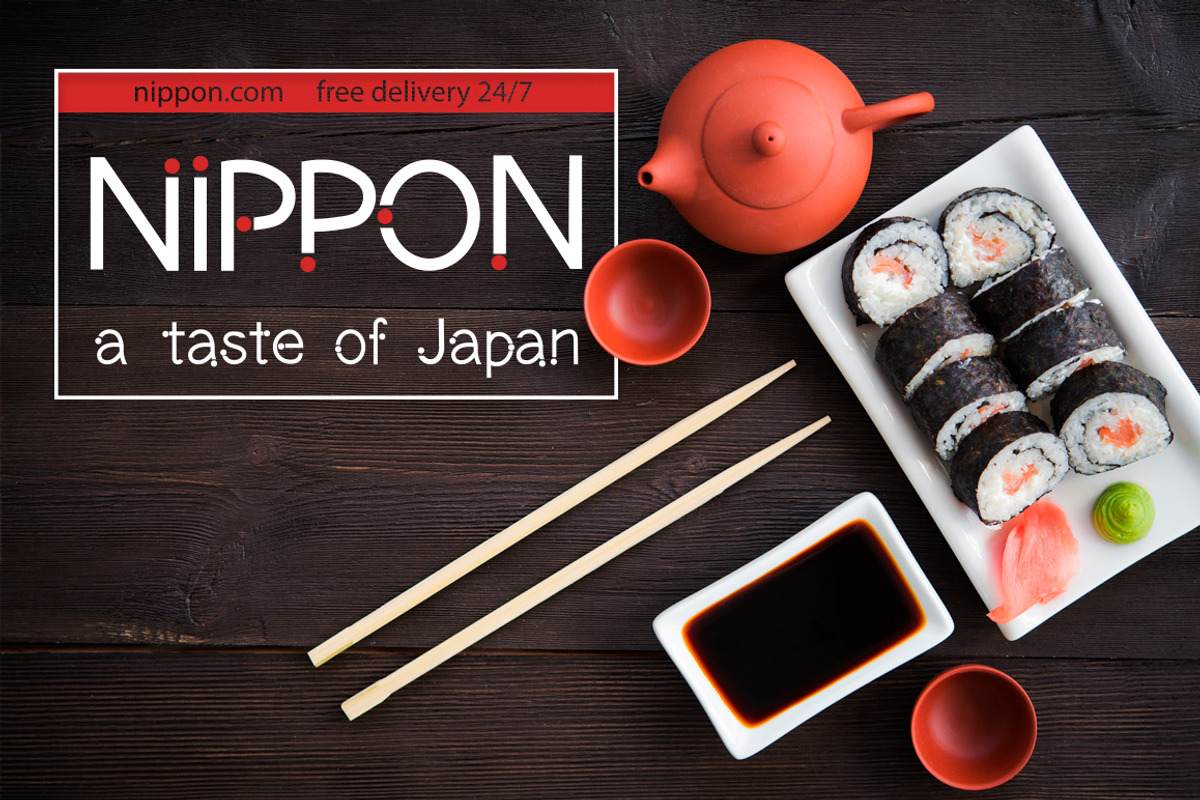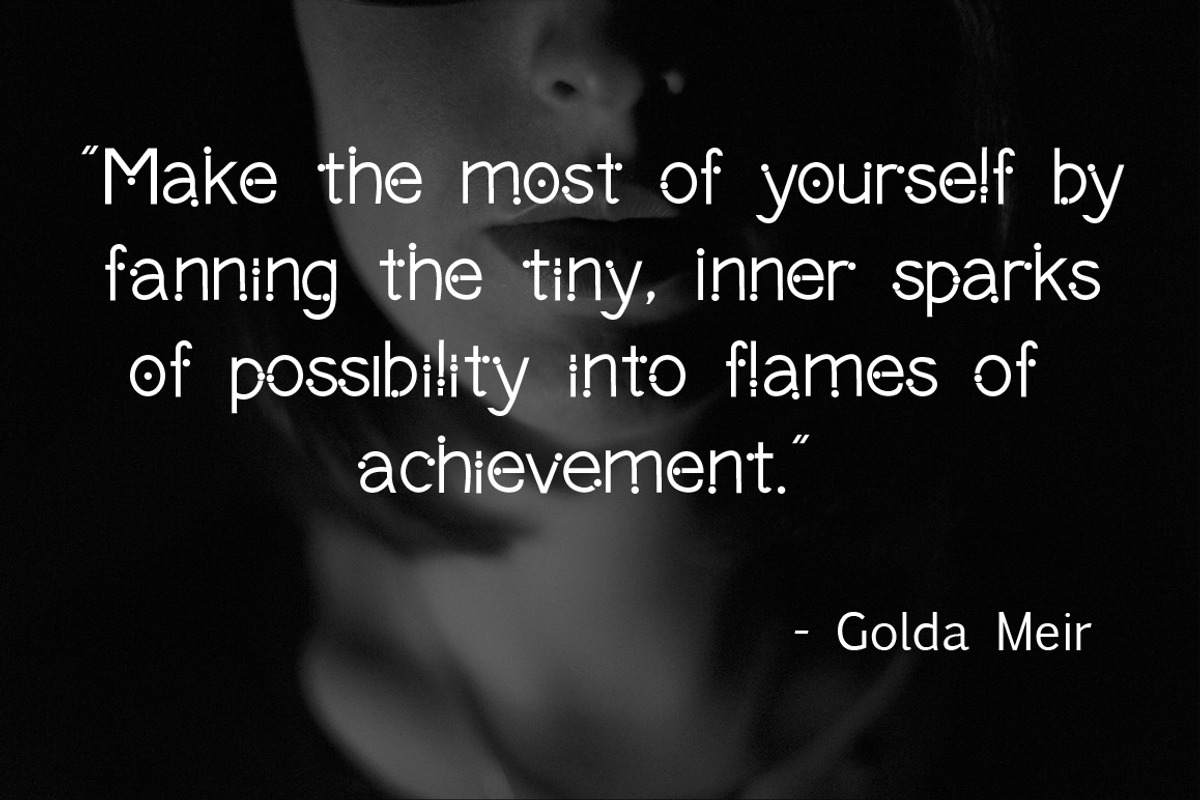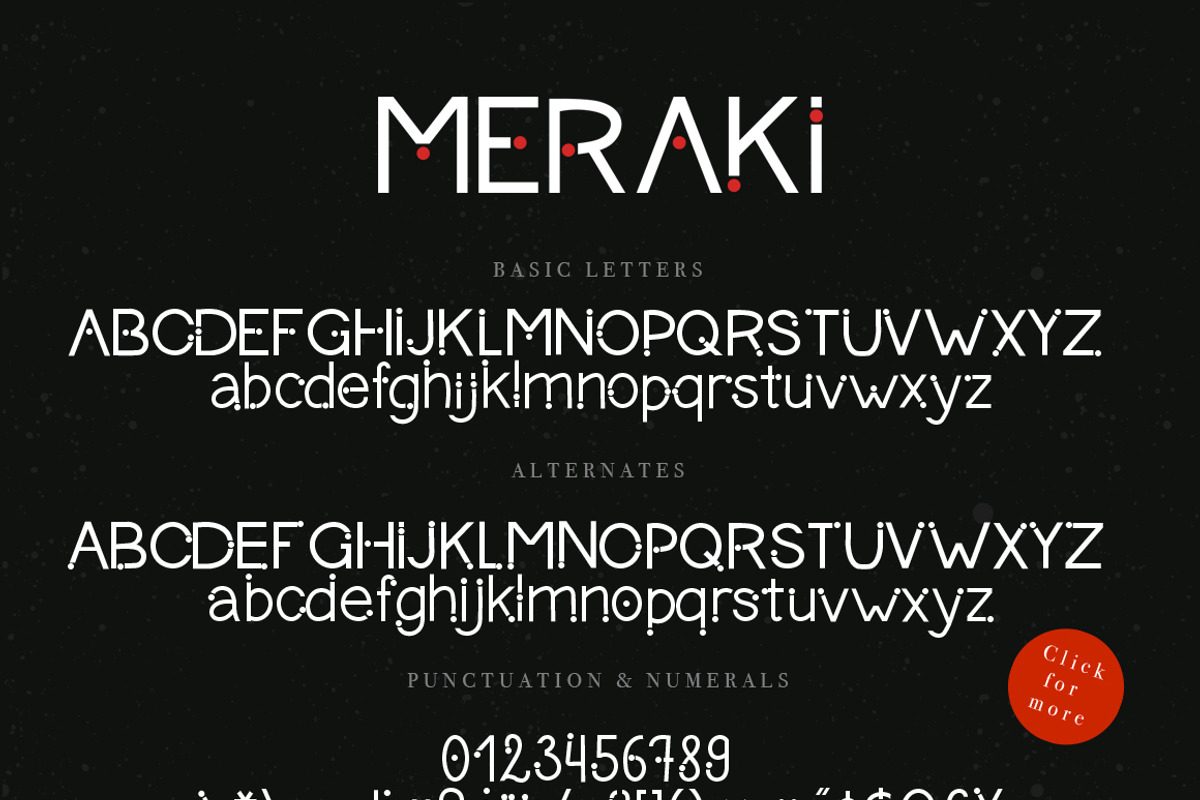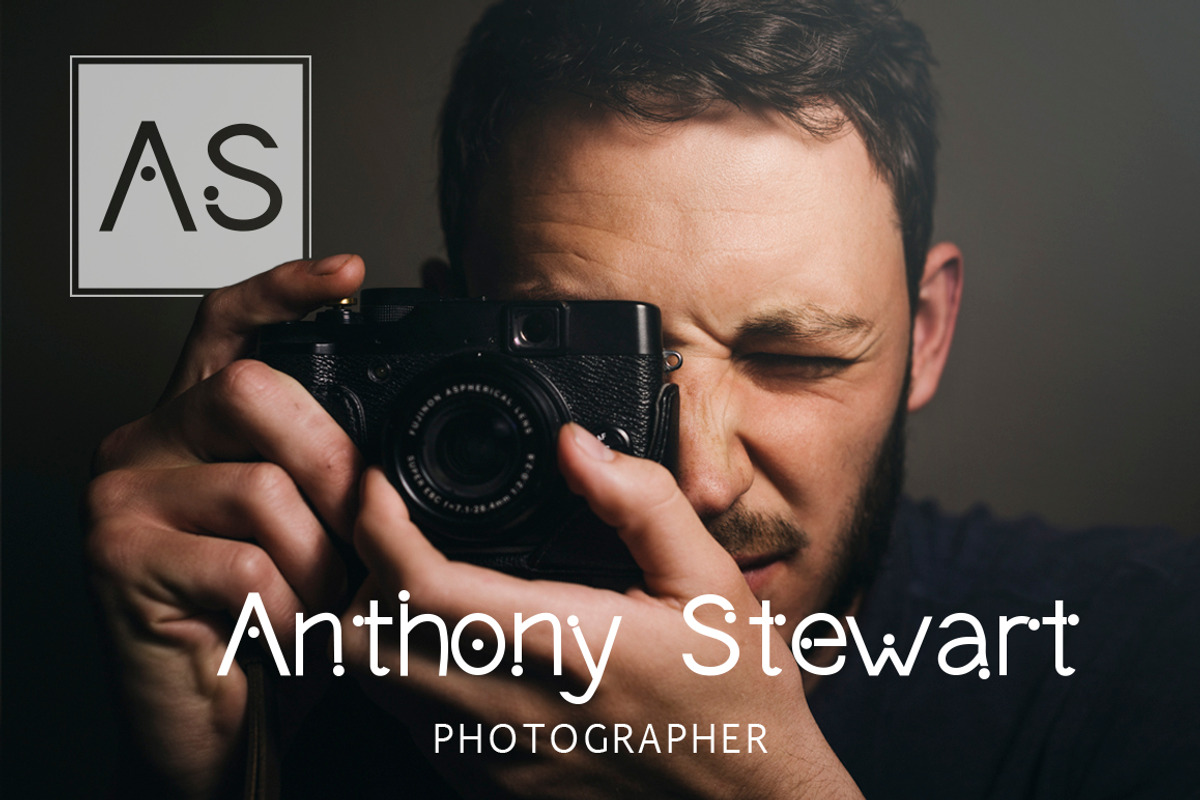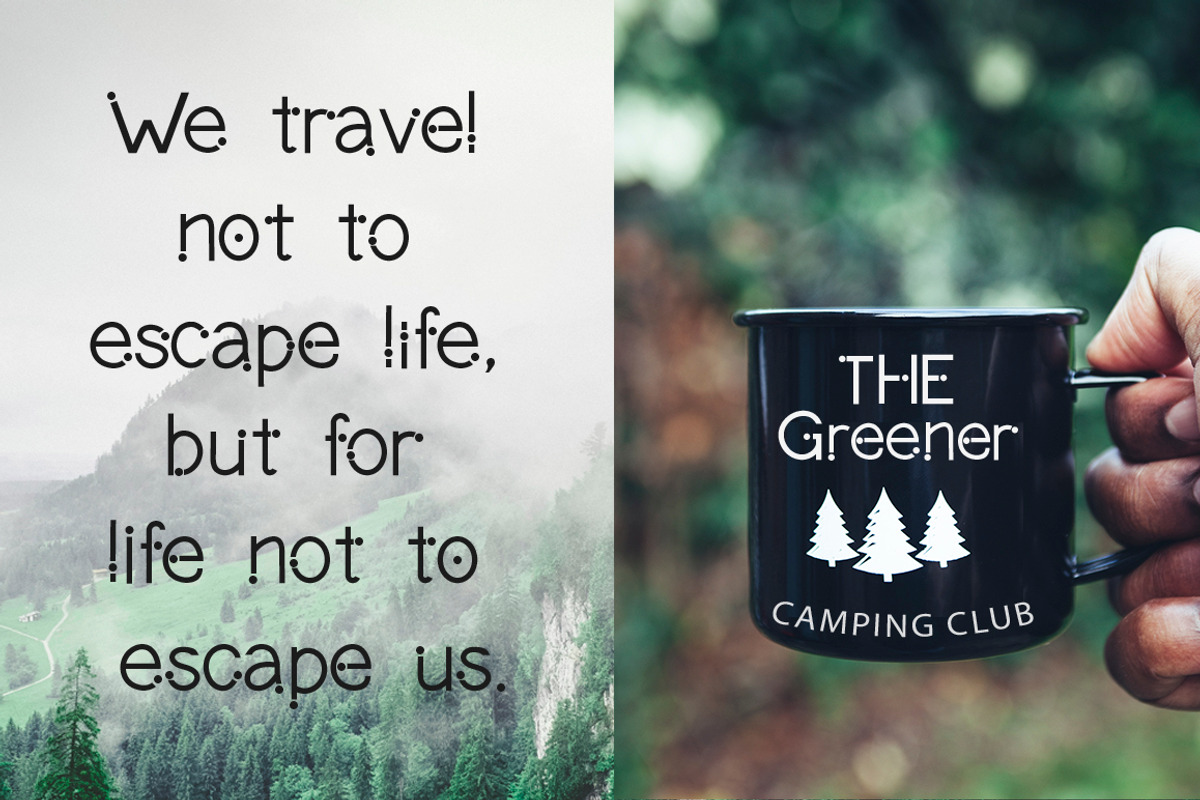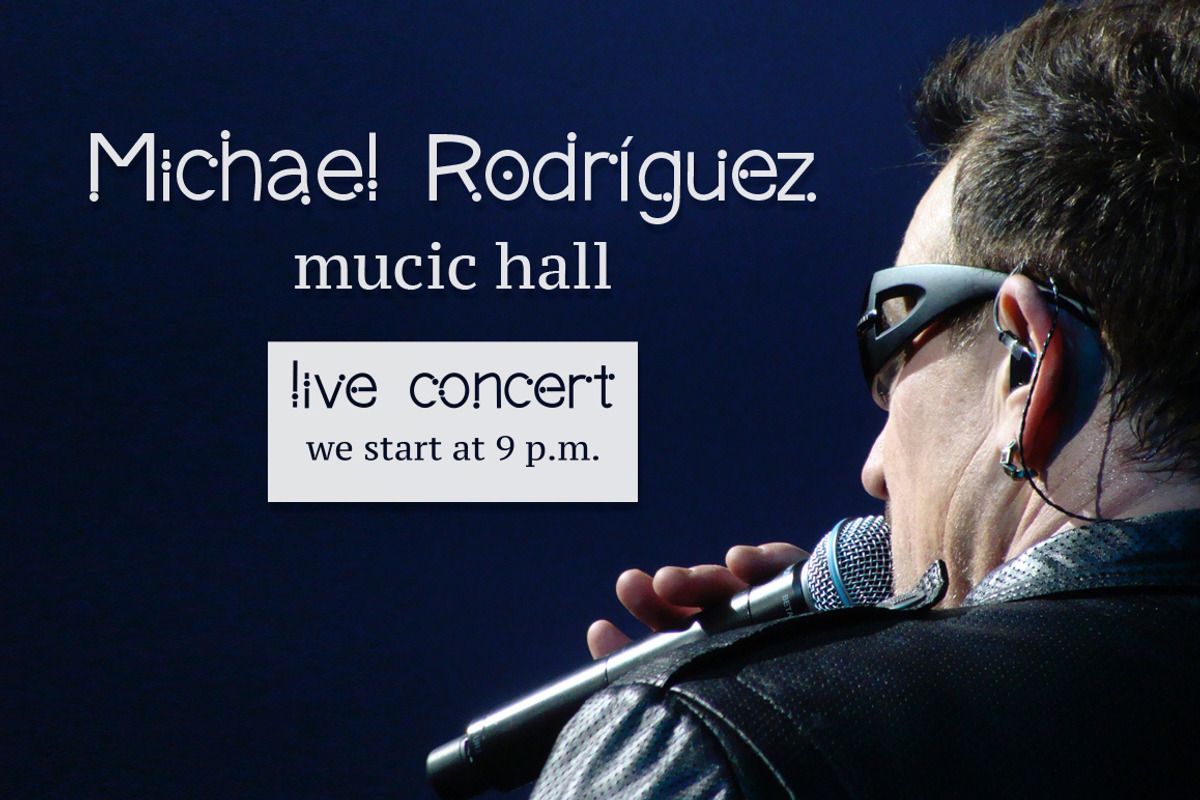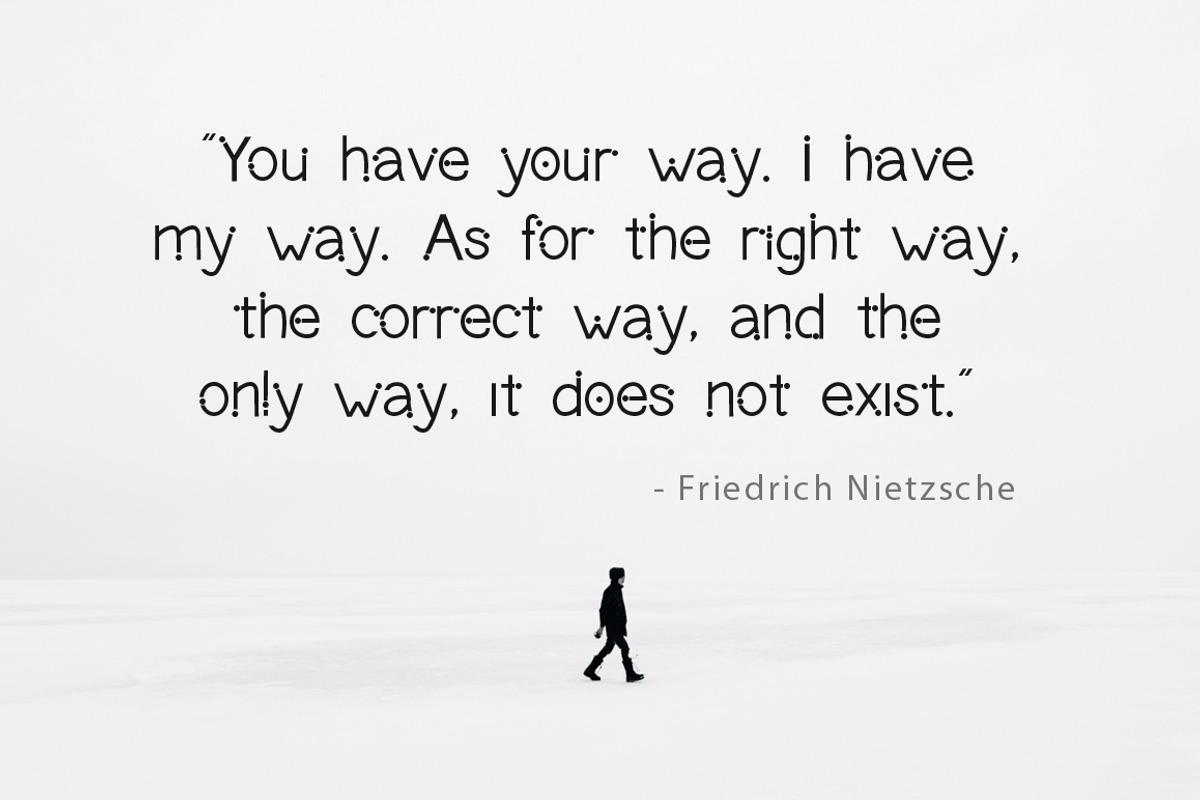
Meraki font.
MERAKI- font created with a soul. It’s is a simple, and extraordinary sans serif that has been designed specifically for logo designs, headlines and branding purposes. It looks great in various projects, where you need clarity with a special character.
While the default character set is distinctive in its own right, graphic designers will love playing with the numerous alternate glyphs that will help them create unique wordmarks and logo designs. This font combines the classic and novelty, Meraki’ simplistic forms with round details make this a lovely, warm typeface perfect for a multitude of typographic applications.
Font include alternate glyphs for the whole alphabet, which allows you to add variety and uniqueness to each logo and each phrase.
This typeface is perfect for:
Magazines & Editorial